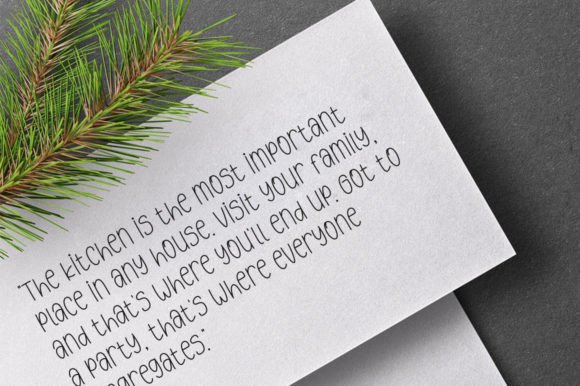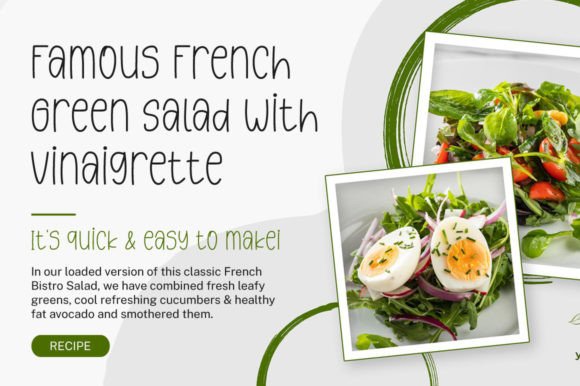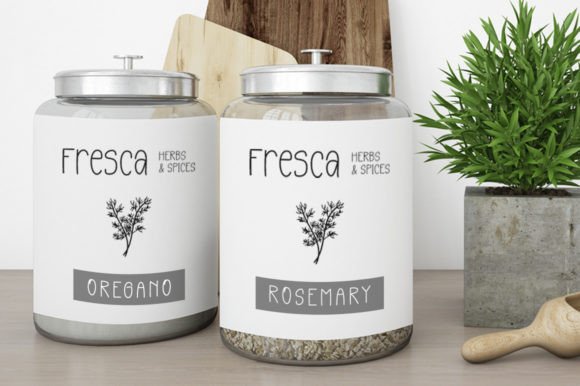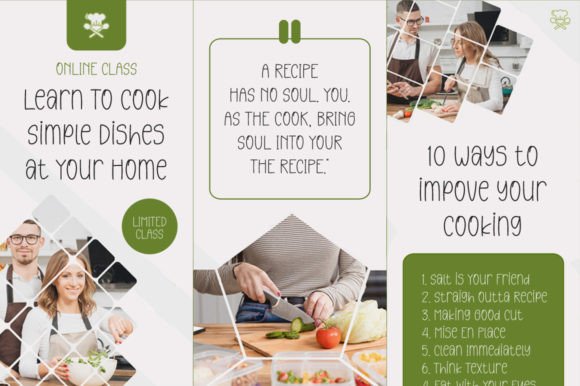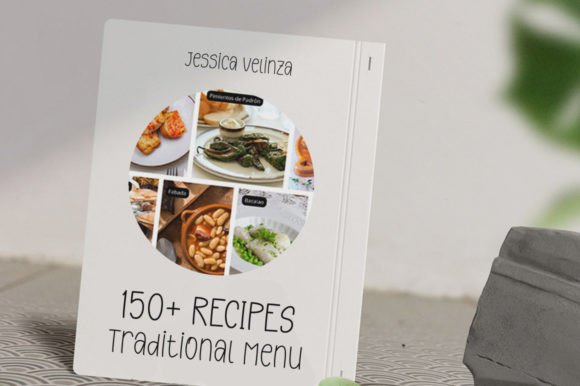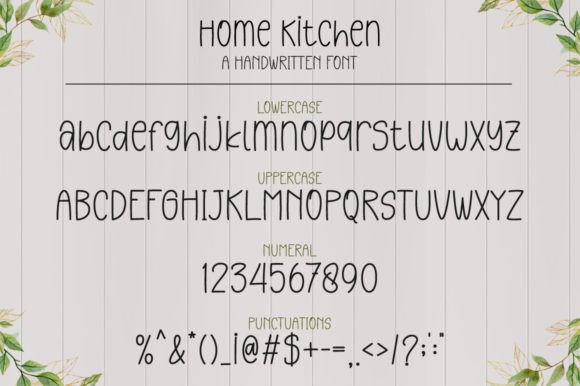
Introduction to Home Kitchen Font
Home Kitchen is a casual display font.
Dainty and joyful, this font will be ideal for writing wedding invitations, cards, or any other design that may need a romantic, personalized touch .